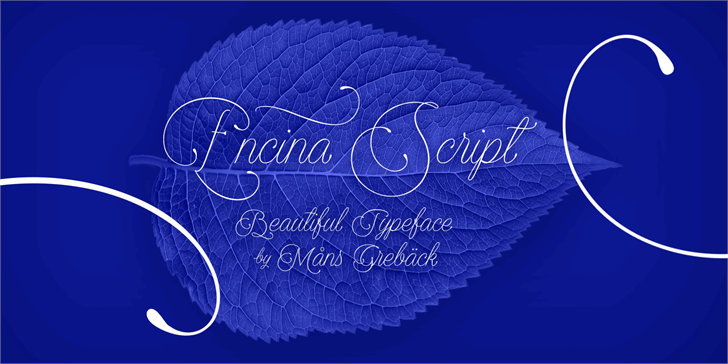
Free Encina Script 2 Font
Featuring the adorable free encina script 2 font. Font Space has created this amazing and beautiful typeface. This is absolutely beautiful font so you can easily make world-class designs.